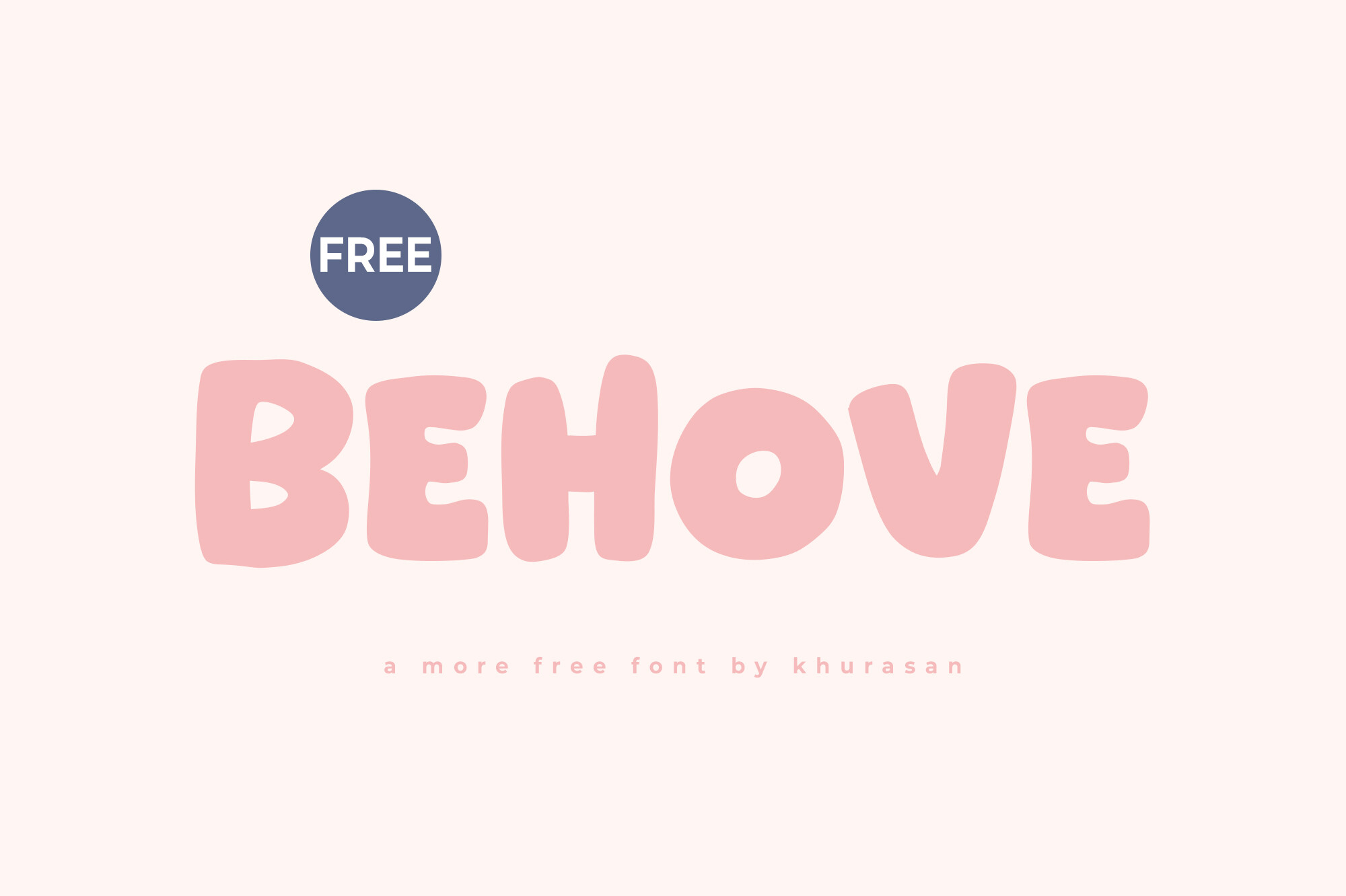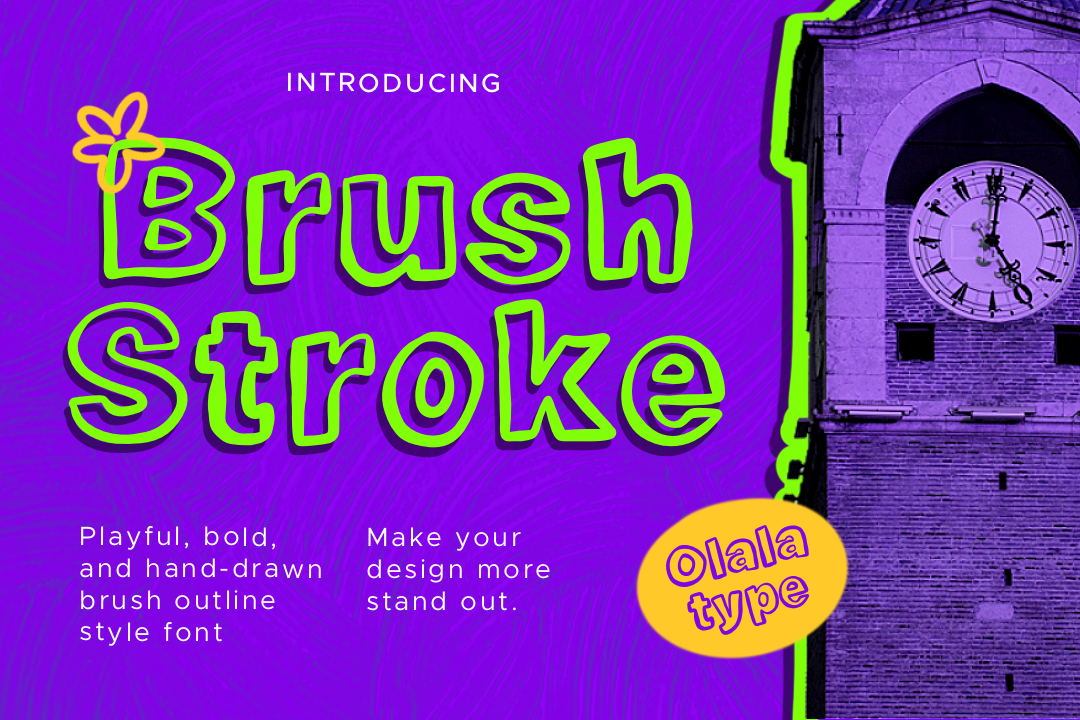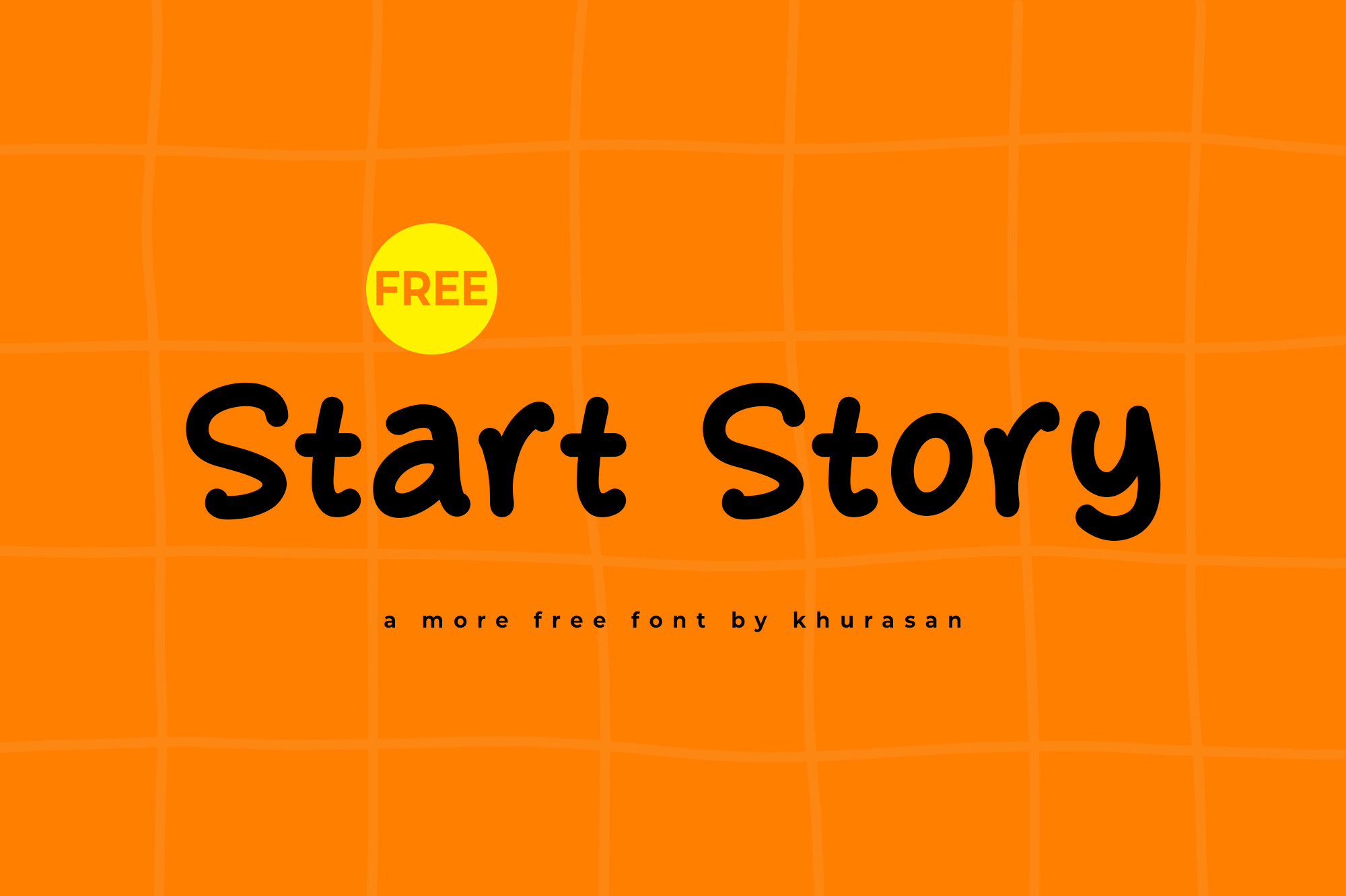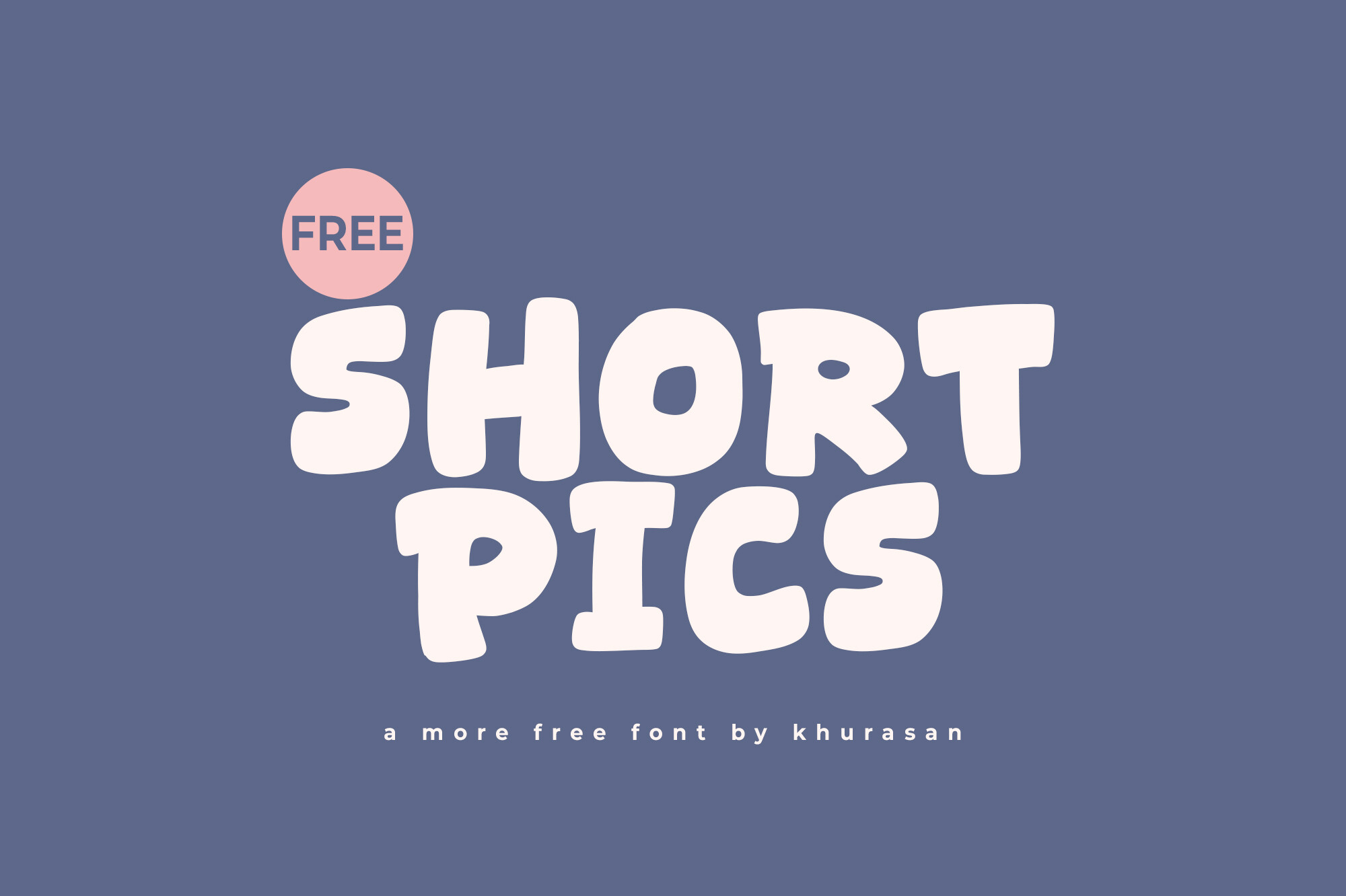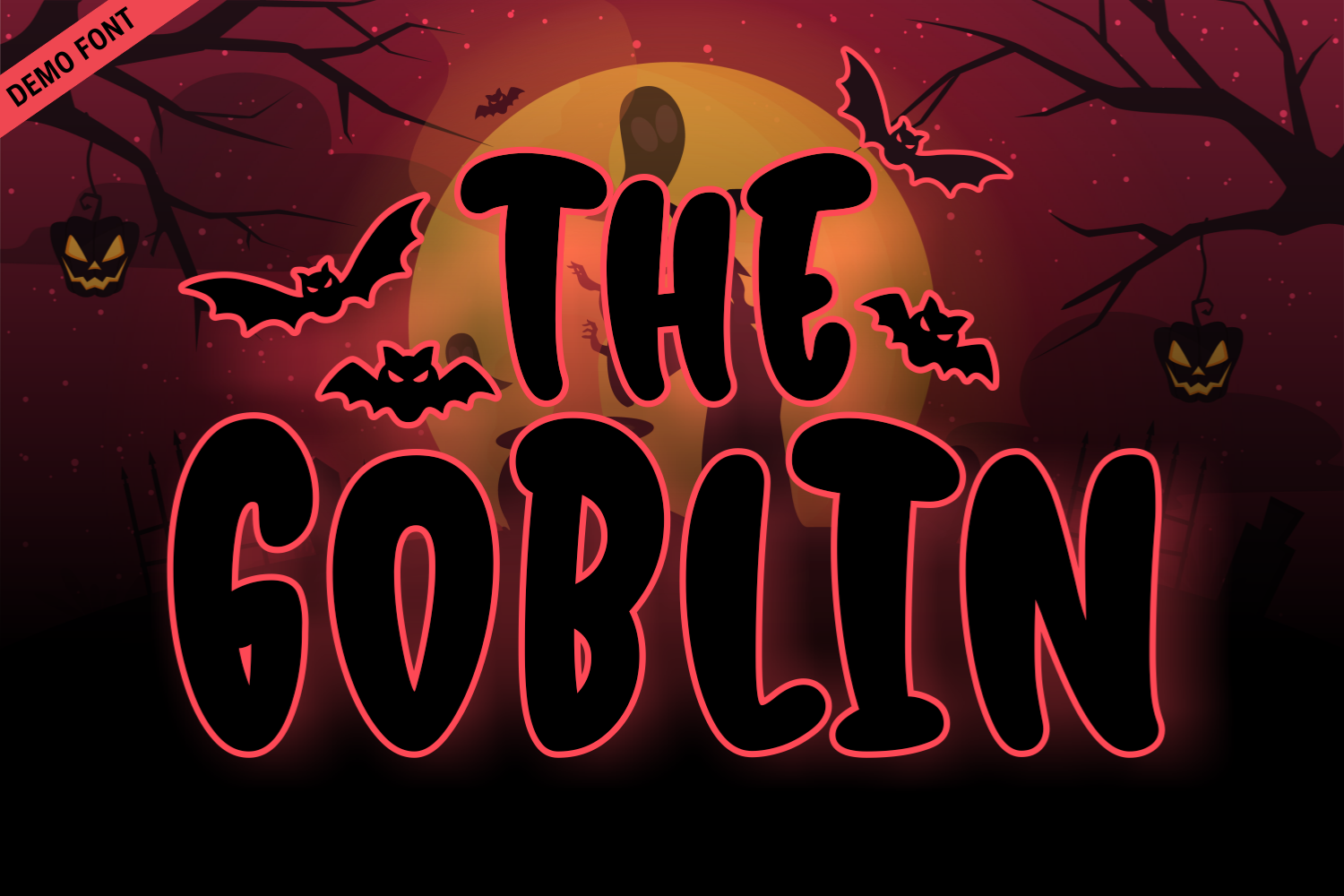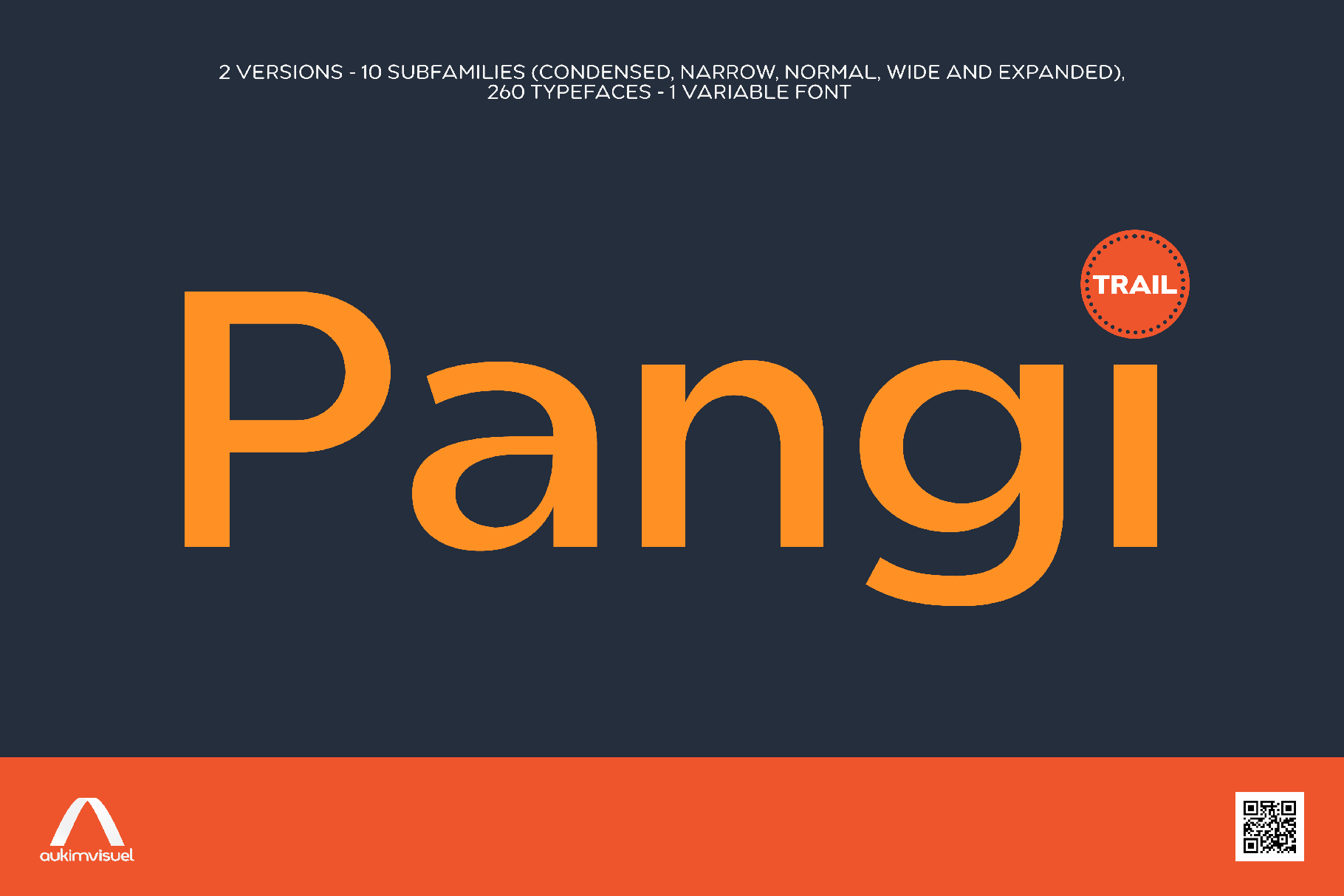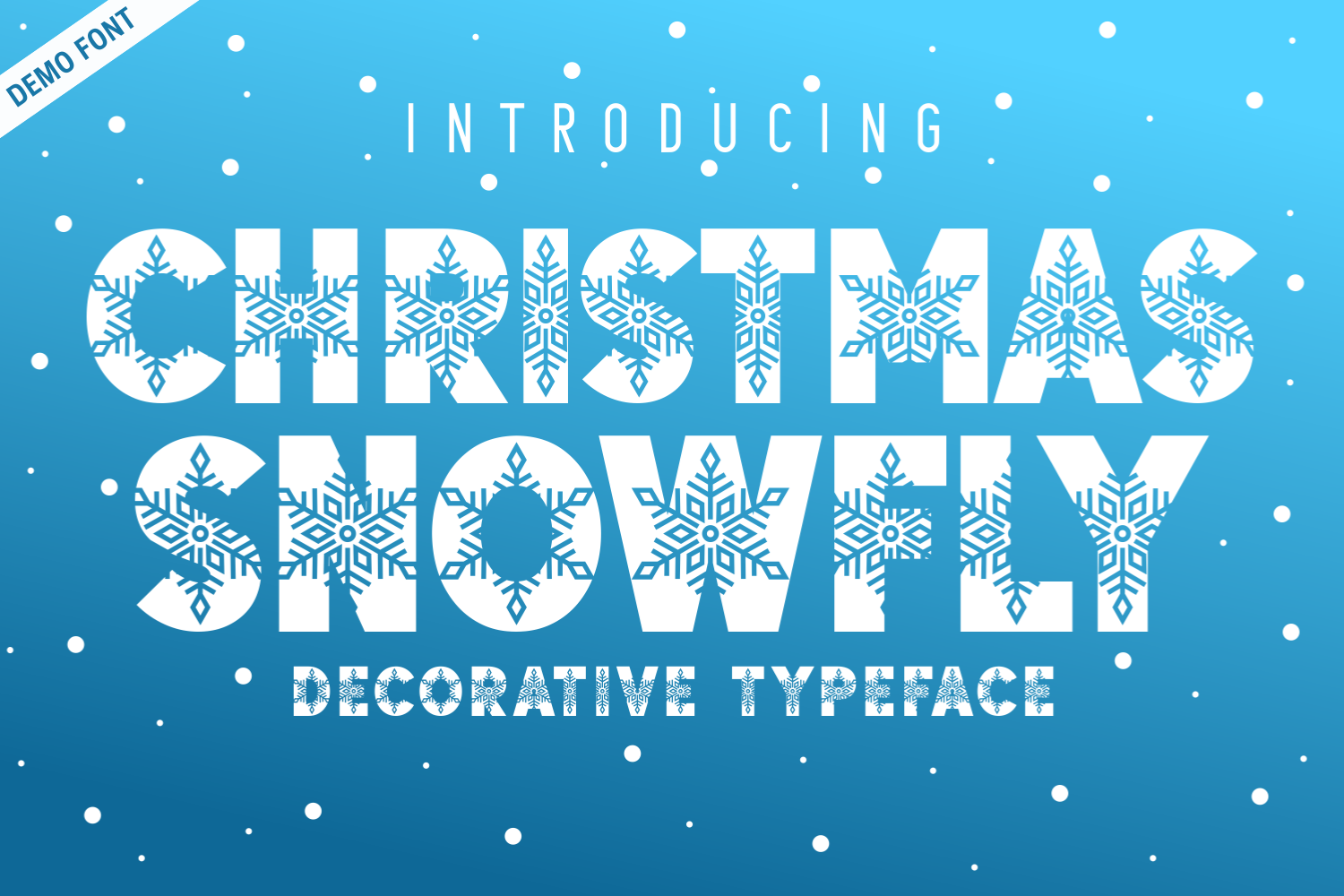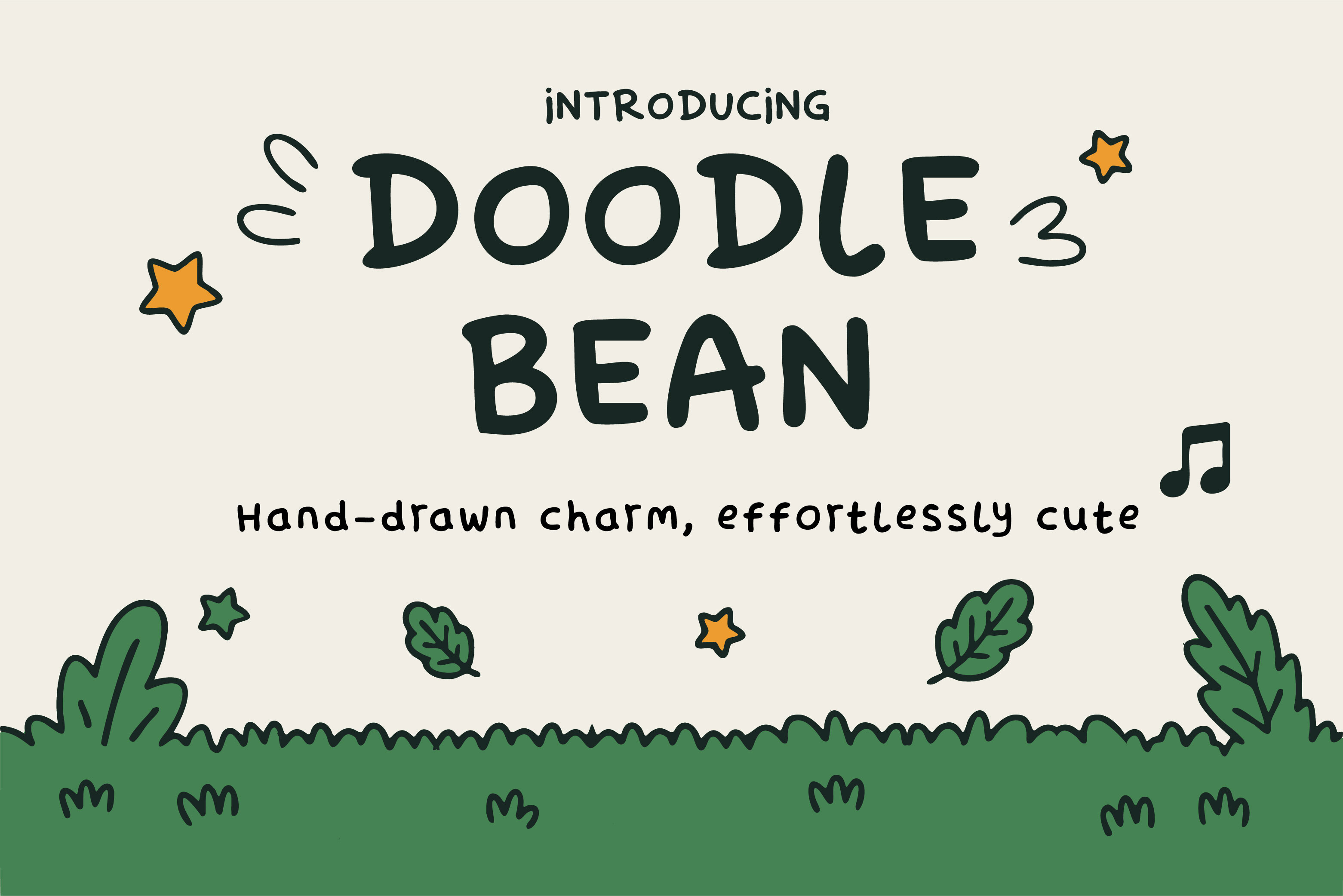
Welcome to this week's Free Fonts Friday, where we showcase a fantastic selection of free fonts available for commercial use! Dive into our curated collection featuring Behove, Brush Stroke, Start Story, Short Pics, The Goblin Demo, Aubrelle, Pangi, Christmas Snowfly, Octosale, and Doodle Bean. Each font brings unique flair and charm, suitable for various design projects, from logos and posters to invitations and merchandise. Whether you're crafting something whimsical or sophisticated, these fonts are designed to inspire creativity and elevate your designs. Don’t miss out on adding these stunning free fonts to your typography toolkit!
Behove
Behove is a modern display font characterized by its playful and cute aesthetic. Ideal for a variety of applications including posters, logos, and book covers, this font brings a charming touch to your designs. Its versatility allows it to seamlessly integrate into numerous projects, ensuring that your creative ideas truly stand out. With Behove, you can elevate your branding and design work, making it a fantastic choice for anyone looking to add a unique flair to their creative endeavors.
Brush Stroke
Brush Stroke is a captivating font that combines audacity with charm. Handcrafted with meticulous attention to detail, it features bold strokes that convey a sense of creativity and uniqueness. Perfect for projects that require a touch of artistic flair, each letter embodies a story of craftsmanship. Whether you're designing for branding, social media, or artistic presentations, Brush Stroke adds a vibrant personality to your typography, making it an excellent choice for those seeking to express originality and style.
Start Story
Start Story is a delightful modern display font perfect for various creative projects. With its charming design, it fits seamlessly into posters, logos, and book covers, making your work truly shine. The font's versatility allows it to complement a wide range of projects, ensuring that your designs not only stand out but also reflect your unique style. Ideal for anyone looking to enhance their branding or artistic creations, Start Story is a must-have addition to your typography toolkit.
Short Pics
Short Pics is a charming modern display font designed to enhance your creative projects. Its playful and versatile nature makes it an excellent choice for posters, logos, magazines, and more. This font effortlessly aligns with a wide variety of design needs, ensuring each project maintains a unique flair while standing out. Whether you're crafting eye-catching visuals or branding materials, Short Pics will add that distinctive touch that captures attention and engages your audience effectively.
The Goblin Demo
The Goblin Demo is a whimsical and playful Halloween font that captures the spirit of mischief. With its bold, chunky letters and spooky vibe, it’s perfect for creating engaging Halloween-themed designs, such as party invitations, posters, and more. This font brings a fun and frightful twist to your projects, making it an exciting choice for seasonal branding and celebrations. Unleash your creativity with The Goblin Demo and watch your designs come to life with a touch of festive charm.
Aubrelle
Aubrelle is a stunning modern handwritten font that combines elegance and readability. With its graceful flow and stylish uppercase letters, it is perfect for a variety of applications, including wedding invitations, logos, and branding. The font’s versatility makes it well-suited for both print and digital designs, allowing you to create inviting graphics that capture attention. Whether you're working on merchandise or social media posts, Aubrelle adds a sophisticated touch that enhances any creative project.
Pangi
Pangi is a meticulously crafted geometric font that stands out with its modern elegance. With a clean aesthetic formed by geometric shapes, this font family is versatile enough for various applications, from graphic design to digital interfaces. Featuring multiple styles and weights, Pangi provides flexibility and function, making it perfect for any project that demands clarity and sophistication. Its extensive glyph set and OpenType features add depth, allowing designers to create visually appealing and innovative typography that captivates audiences.
Christmas Snowfly Demo
Christmas Snowfly Demo is a festive decorative typeface that embodies the joy of winter. Each letter is beautifully crafted with unique snowy details, perfect for holiday projects. This font captures the spirit of the season, making it ideal for Christmas cards, invitations, and social media graphics. Its combination of sharp geometric shapes and delicate snowflake motifs creates a charming look that stands out. Whether for print or digital designs, Christmas Snowfly infuses your projects with a warm, cheerful personality, making each message feel special.
Octosale
Octosale is a delightful modern display font designed to enhance your creative projects. It’s perfect for a wide range of applications, including posters, logos, and magazines. With its charming design, Octosale brings a unique touch that is both eye-catching and versatile, allowing you to create visually striking designs with ease. This font is a fantastic choice for anyone seeking to add flair to their work while ensuring that each project stands out in a crowded marketplace.